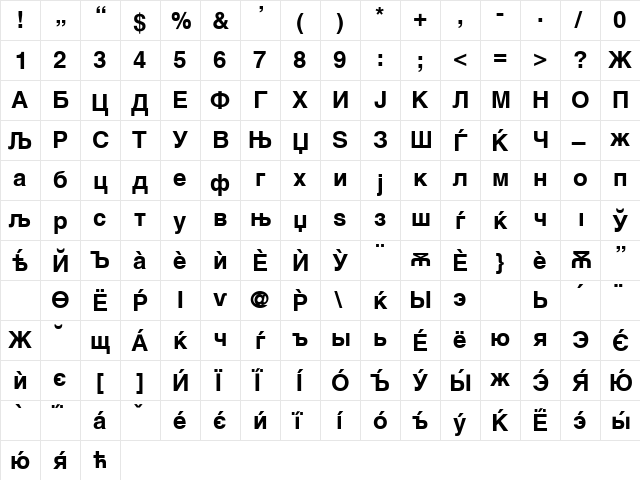
Pulshelvetika7 Bold
Design Context for Pulshelvetika7 Typeface
Pulshelvetika7 offers clean, dependable letterforms without strong stylistic allegiance, making it a practical choice for designers who need flexibility. The heavy weight commands attention and anchors typographic hierarchies.